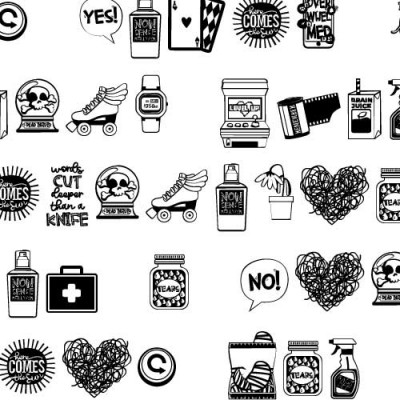
DB Mixed Emotions - Too - DB
This fun doodlebat font features 26 more whimiscal and illustrated emotions. Perfect for cards, crafts, gifts, planner stickers, scrap book pages, classrooms and more!